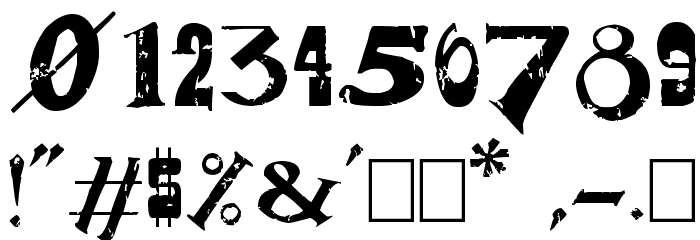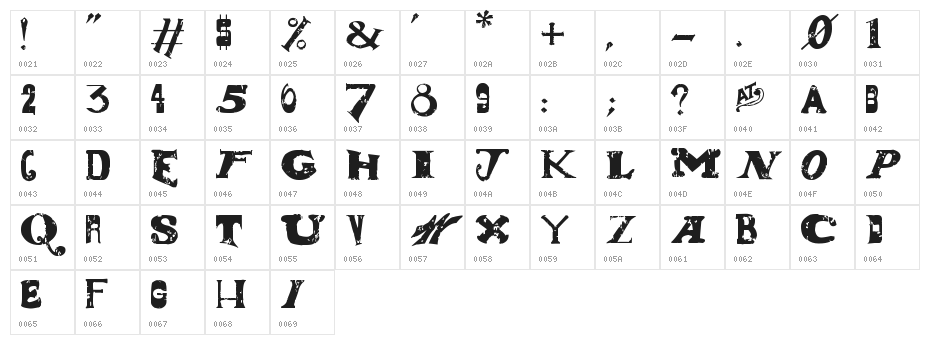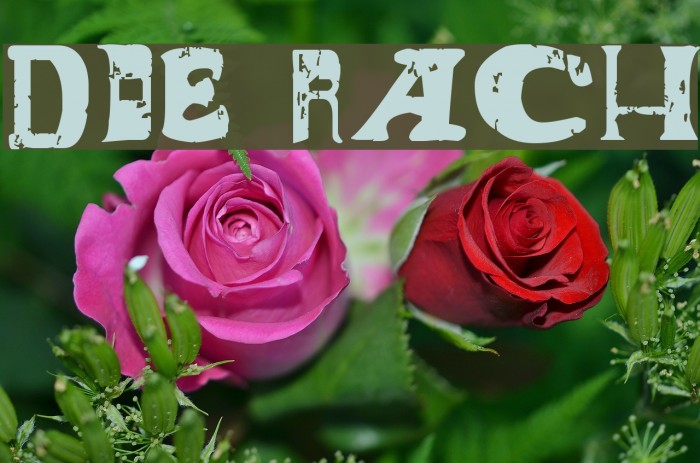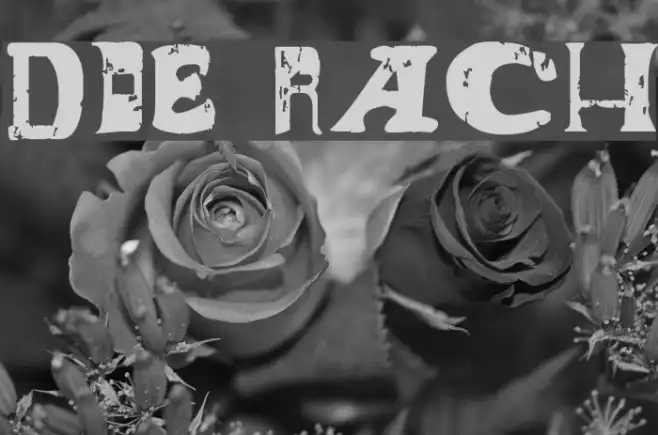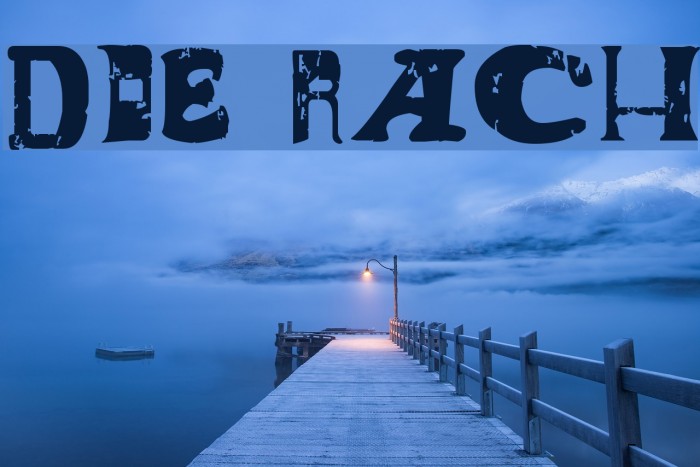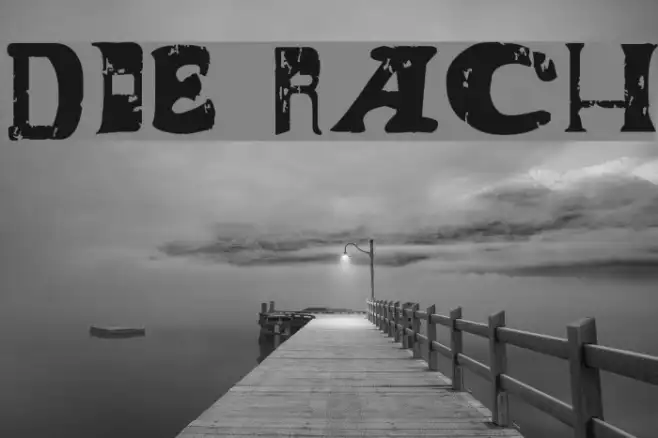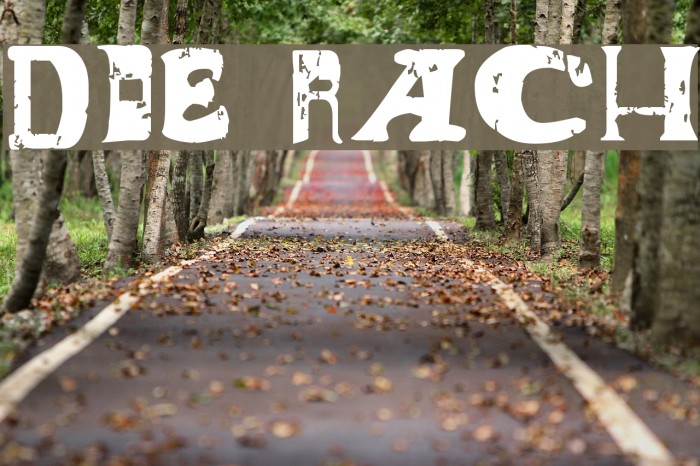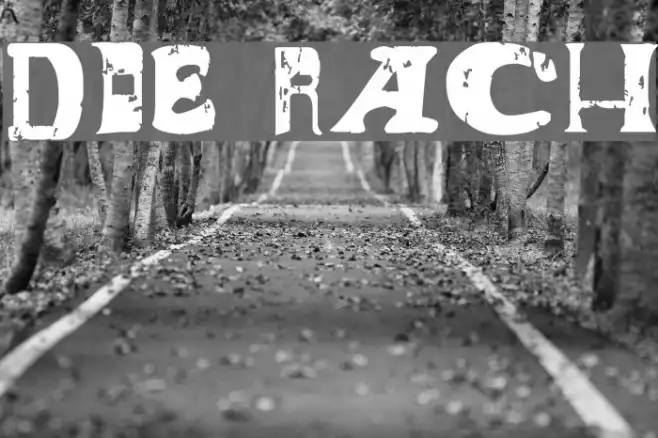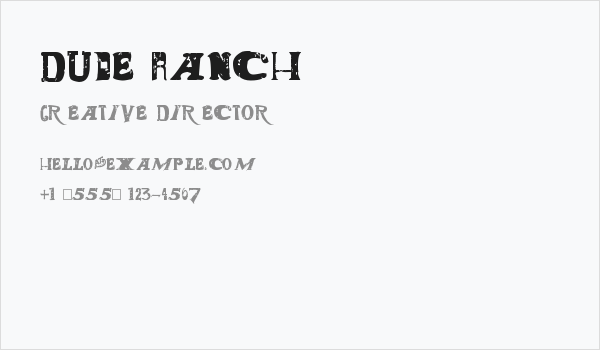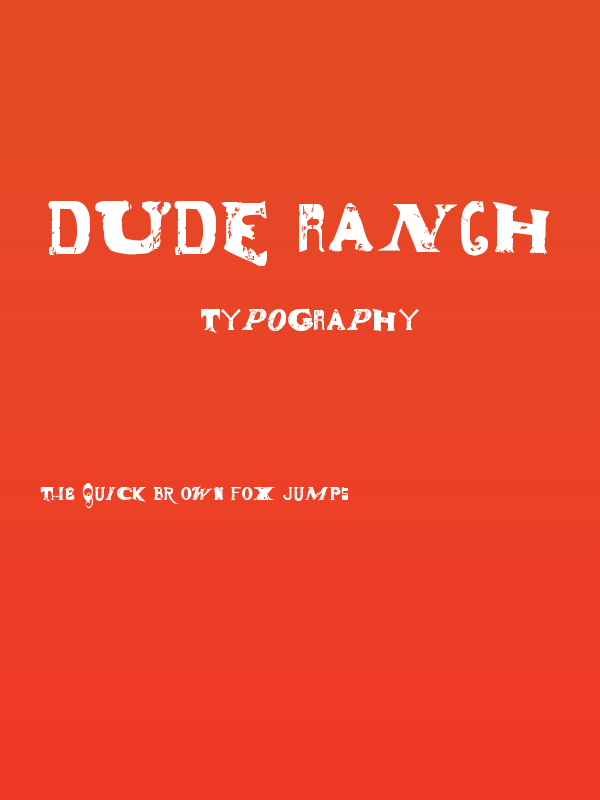
Dude Ranch Font
Dude Ranch Description
This font features a rugged, distressed style that evokes a sense of the Wild West. The characters are bold and heavily textured, with irregular edges and a worn appearance that suggests age and use. The uppercase and lowercase letters maintain a consistent style, with unique flourishes on certain characters like Q and R. Numbers and special characters are equally bold, with the same distressed texture. This font is ideal for projects that require a vintage or rustic aesthetic, such as posters, signage, or themed event materials.
| Proposed Projects | Ideal for vintage-themed posters, rustic signage, or Western-style event materials. |